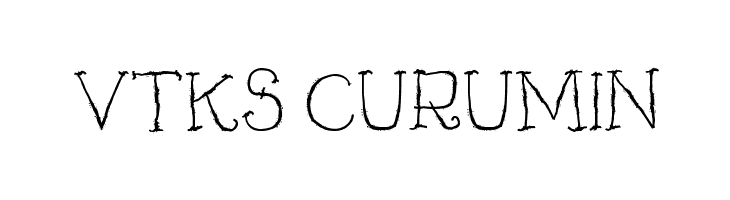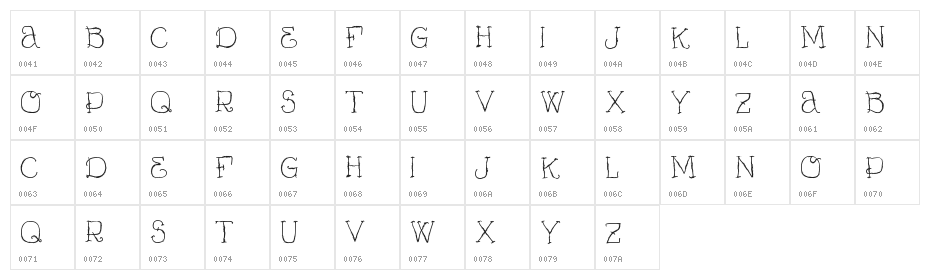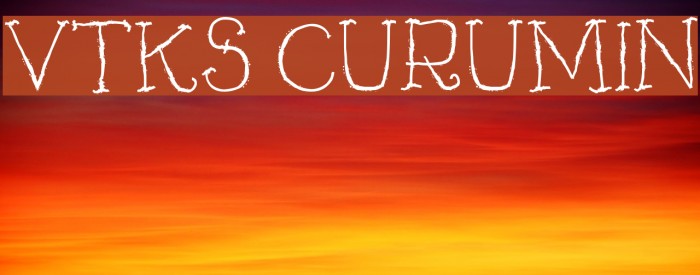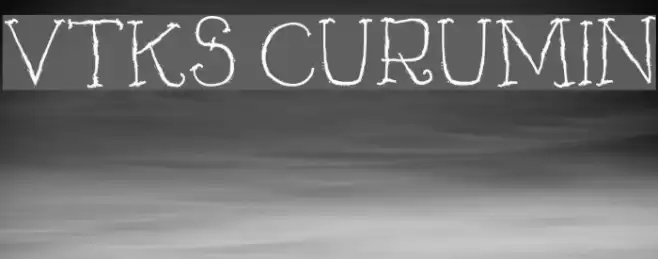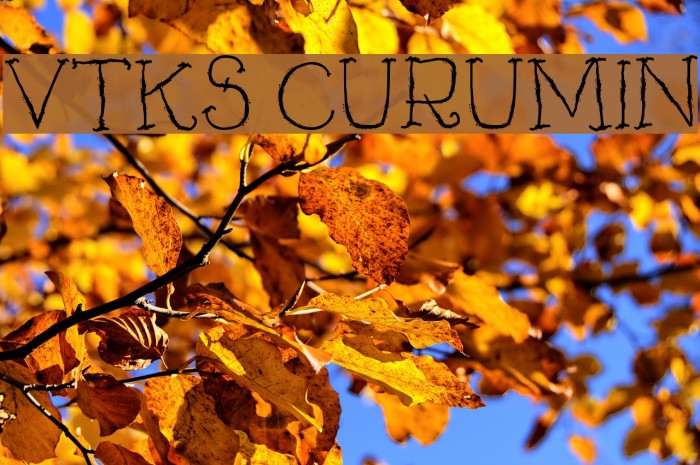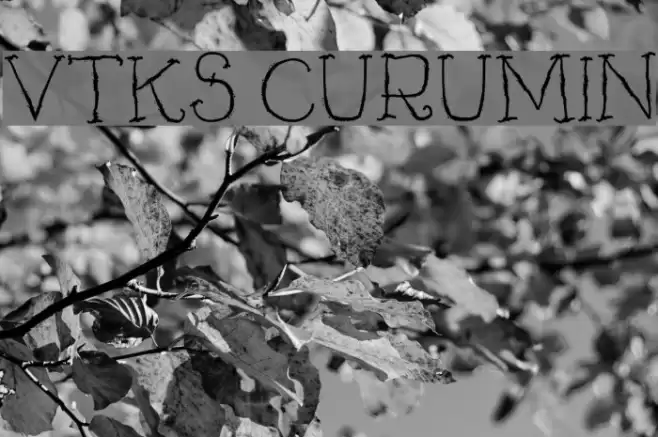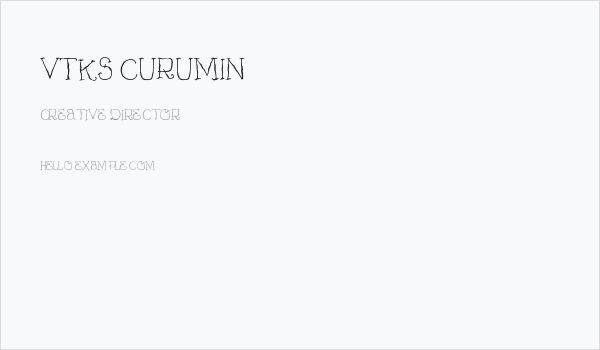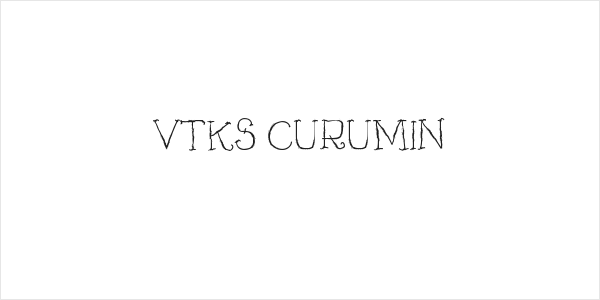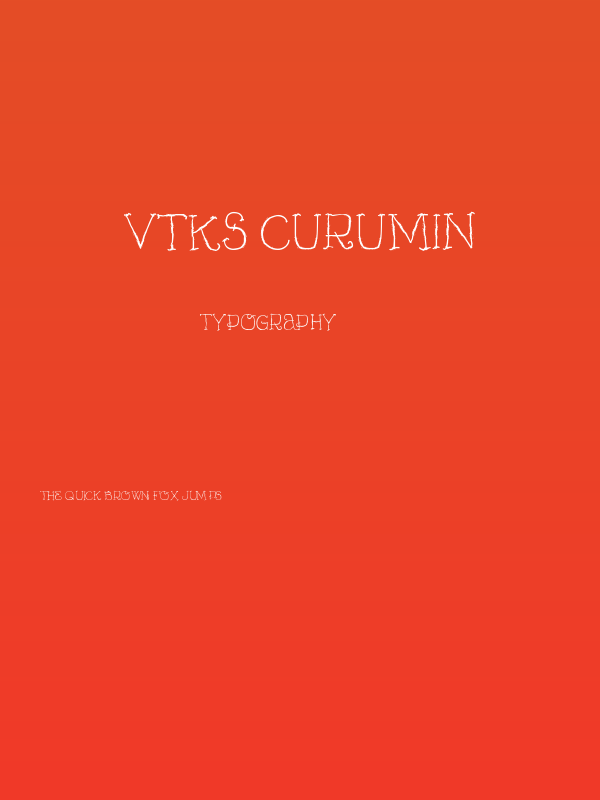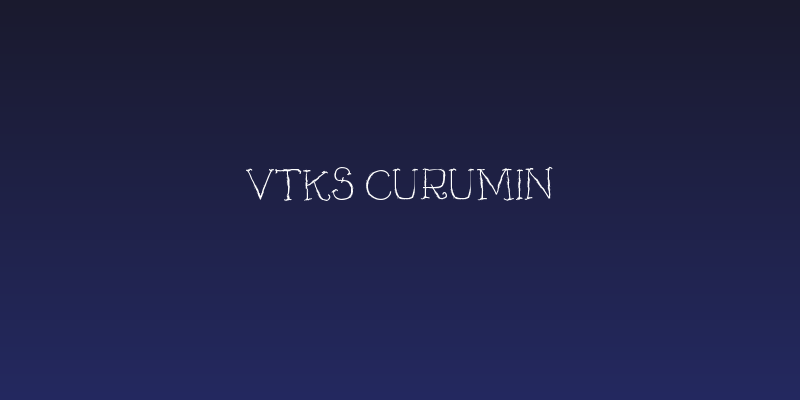
Vtks Curumin Font
Vtks Curumin Description
This font features a whimsical and decorative style, characterized by its playful and irregular strokes. The letters have a hand-drawn appearance, with unique embellishments that give each character a distinct personality. The overall design is reminiscent of a vintage or fairy-tale aesthetic, making it ideal for creative and artistic projects. The uppercase and lowercase letters maintain a consistent style, with slight variations that add to the font's charm. The numbers and special characters are equally ornate, ensuring a cohesive look across all text elements.
Overall StyleVintage, Decorative
Use CaseHeadlines, Logos, Creative projects
Proposed ProjectsIdeal for children's book covers, fantasy-themed posters, or whimsical branding projects.